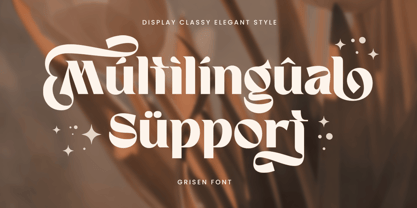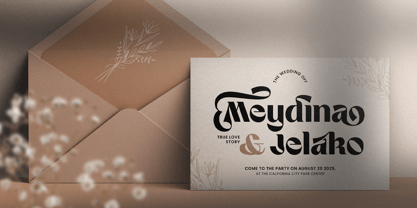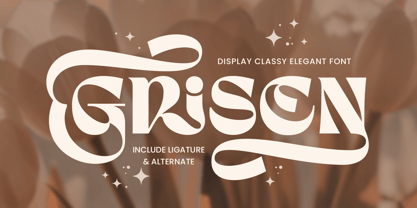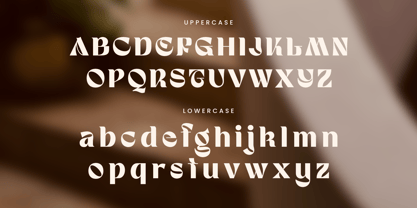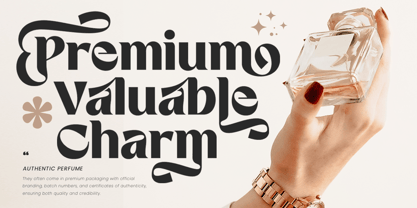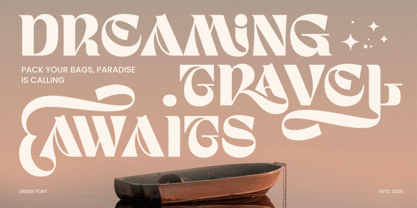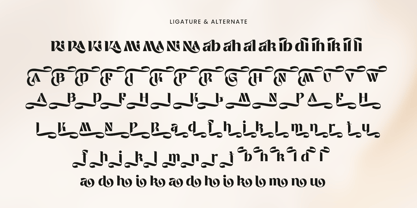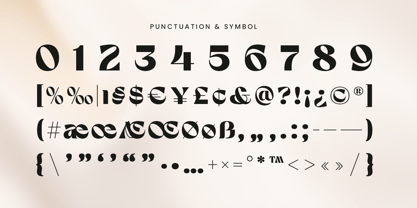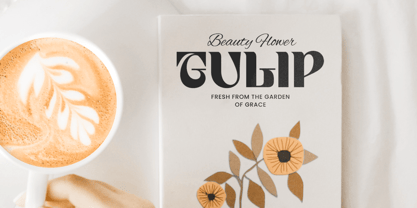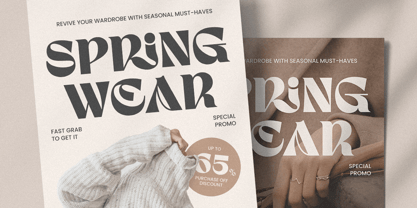
Grisen - Classy Elegant Font
Grisen is a sophisticated serif font that blends timeless elegance with contemporary grace. Designed for upscale branding, editorial layouts, fashion campaigns, and wedding stationery, Grisen’s delicate curves and balanced proportions create a luxurious yet accessible look. It adds poise and style to any visual presentation.
Inspired by classic type with a modern twist, Grisen font offers the perfect mix of minimalism and detail. It’s ideal for headlines, logos, and refined packaging that require a touch of class. Whether used in digital or print, it delivers clarity, character, and premium aesthetics.
Grisen font invites your designs to speak with elegance—perfect for those who appreciate subtle sophistication.
Grisen Classy Elegant Font Features:
Elegant and Refined Serif Style
Perfect for Branding, Fashion, Invitations & Editorial Design
Punctuation, Numbers, and Symbols
Uppercase and Lowercase
Alternate and Ligature Features
Multilingual Characters available for:
Afrikaans, Albanian, Asu, Basque, Bemba, Bena, Breton, Chiga, Cornish, Dutch, English, Estonian, Filipino, Finnish, Friulian, Galician, German, Gusii, Indonesian, Irish, Italian, Kabuverdianu, Kalenjin, Kinyarwanda, Luo, Luxembourgish, Luyia, Machame, Makhuwa-Meetto, Makonde, Malagasy, Manx, Morisyen, North Ndebele, Nyankole, Oromo, Portuguese, Quechua, Romansh, Rombo, Rundi, Rwa, Samburu, Sango, Sangu, Scottish Gaelic, Sena, Shambala, Shona, Soga, Somali, Spanish, Swahili, Swedish, Swiss.